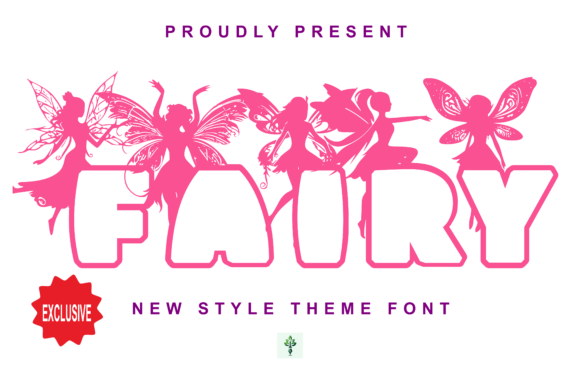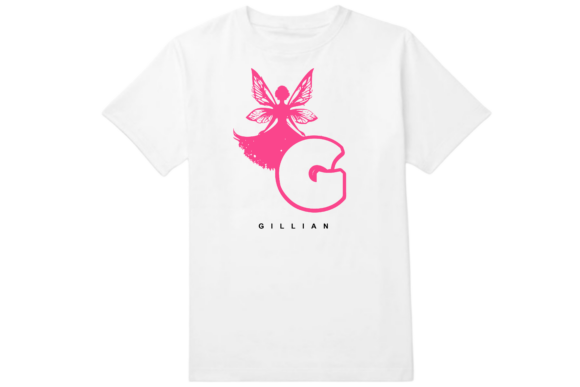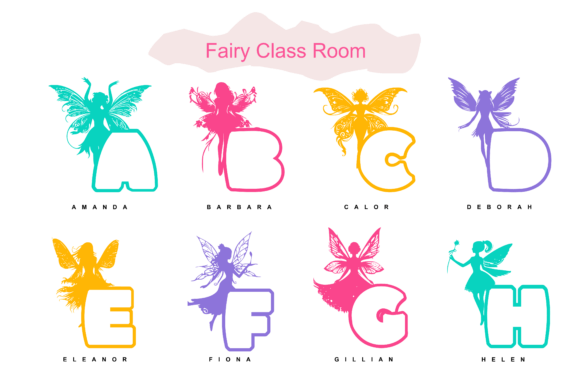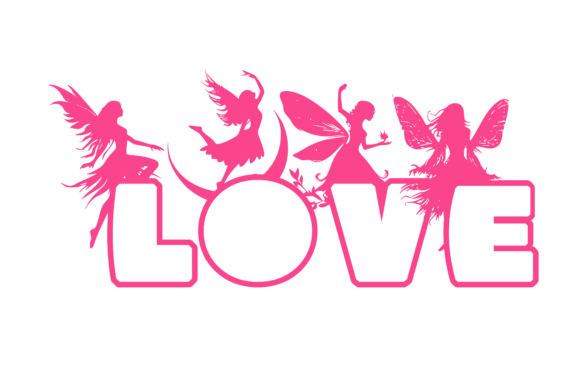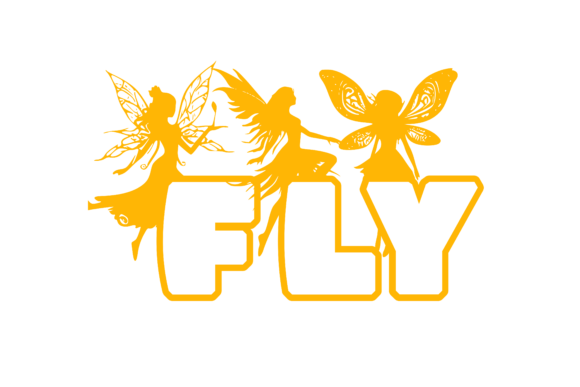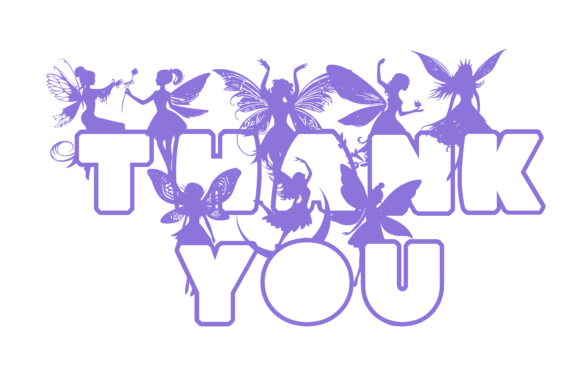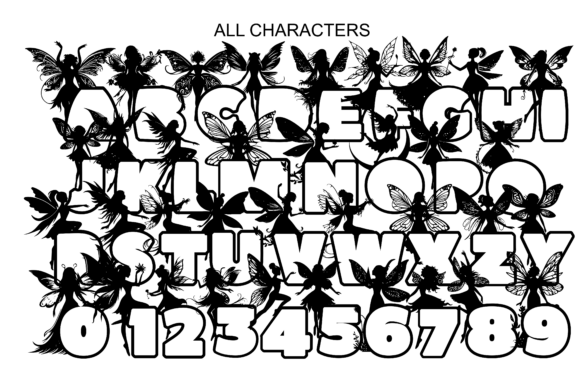
The Magic of Typography: Unlocking the Enchanting World of Fairy Font
Do you remember that moment when you stumbled upon a font that perfectly captured the essence of your artistic vision? For designers, it’s a moment of pure joy – a spark that sets their imagination ablaze. And for those who have discovered it, the Fairy Font is that elusive treasure that brings their creative endeavors to life.
This captivating typeface is designed to add a touch of whimsy and fantasy to any design project. With its vibrant and playful style, the Fairy Font is an ideal choice for designers seeking to inject a sense of magic into their work. Whether you’re crafting a logo, creating a poster, or designing a website, this enchanting font is sure to elevate your artistic expression and leave a lasting impression.
Fairy Font Key Features
- Unique Characteristics: Fairy Font features a distinctive, whimsical design with intricate details and flourishes, making it suitable for creative and artistic projects.
Fairy Font Review
First off, I want to say that I’m a sucker for whimsical fonts, and Fairy Font certainly delivers ✨. The intricate details and flowing curves are a joy to look at. It’s perfect for adding a touch of magic to your designs, especially for fantasy or children’s projects. The font is also highly customizable, allowing you to adjust the size, color, and even add some subtle animations ✨.
However, I do have to mention a few limitations ⚠️. Firstly, the font may not be the most readable at smaller sizes, which could be a problem for body text. Additionally, the font’s complexity may make it difficult to pair well with other fonts, especially sans-serifs ✨. Lastly, the font’s weight may not be suitable for headings, as it can come across as too ornate ⚠️.
Overall, I think Fairy Font is a great choice for designers looking to add a touch of whimsy to their projects. While it may have some limitations, its unique charm and customization options make it well worth exploring.
- Unique and whimsical design ✨
- Perfect for fantasy or children’s projects
Tips for Getting the Most Out of Fairy Font
To get the most out of Fairy Font, try combining it with other design elements, such as:
- Whimsical illustrations
- Floral patterns
- Soft pastel colors
Fairy Font is commonly used in:
- Children’s book design
- Wedding invitations
- Party decorations
Alternatives to Fairy Font
Great Vibes is a modern script font that is perfect for creating a whimsical and elegant look. It’s ideal for headings, logos, and titles that require a touch of sophistication. Great Vibes is more elegant and refined compared to Fairy Font, which has a more playful and childlike feel.
Carolyna Pro is a stylish and luxurious script font that is perfect for creating a high-end look. It’s ideal for luxury brands, fashion, and lifestyle designs. Carolyna Pro is more formal and sophisticated compared to Fairy Font, which has a more casual and playful feel.
Alex Brush is a beautiful and elegant script font that is perfect for creating a romantic and whimsical look. It’s ideal for wedding invitations, branding, and packaging designs. Alex Brush is more delicate and refined compared to Fairy Font, which has a more bold and playful feel.